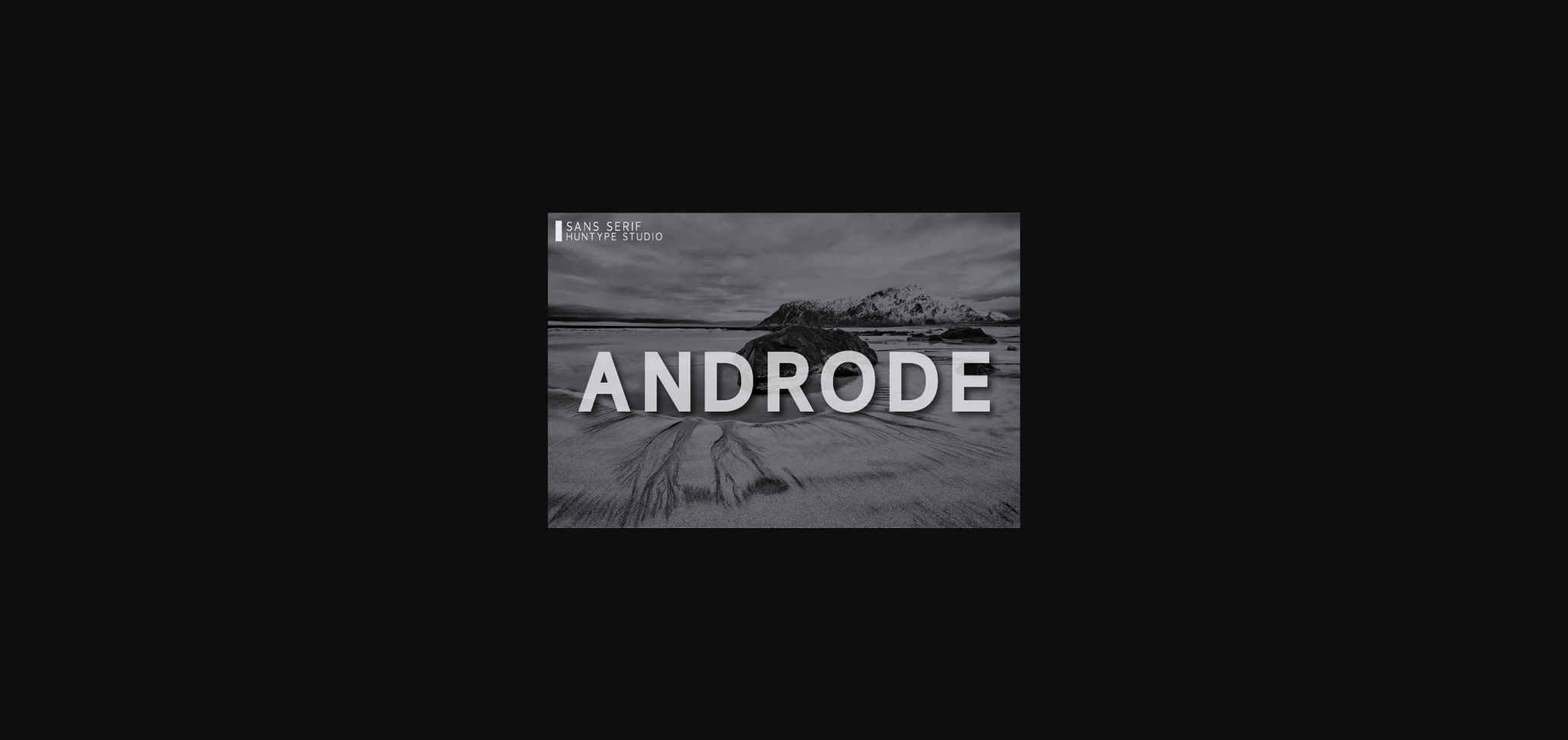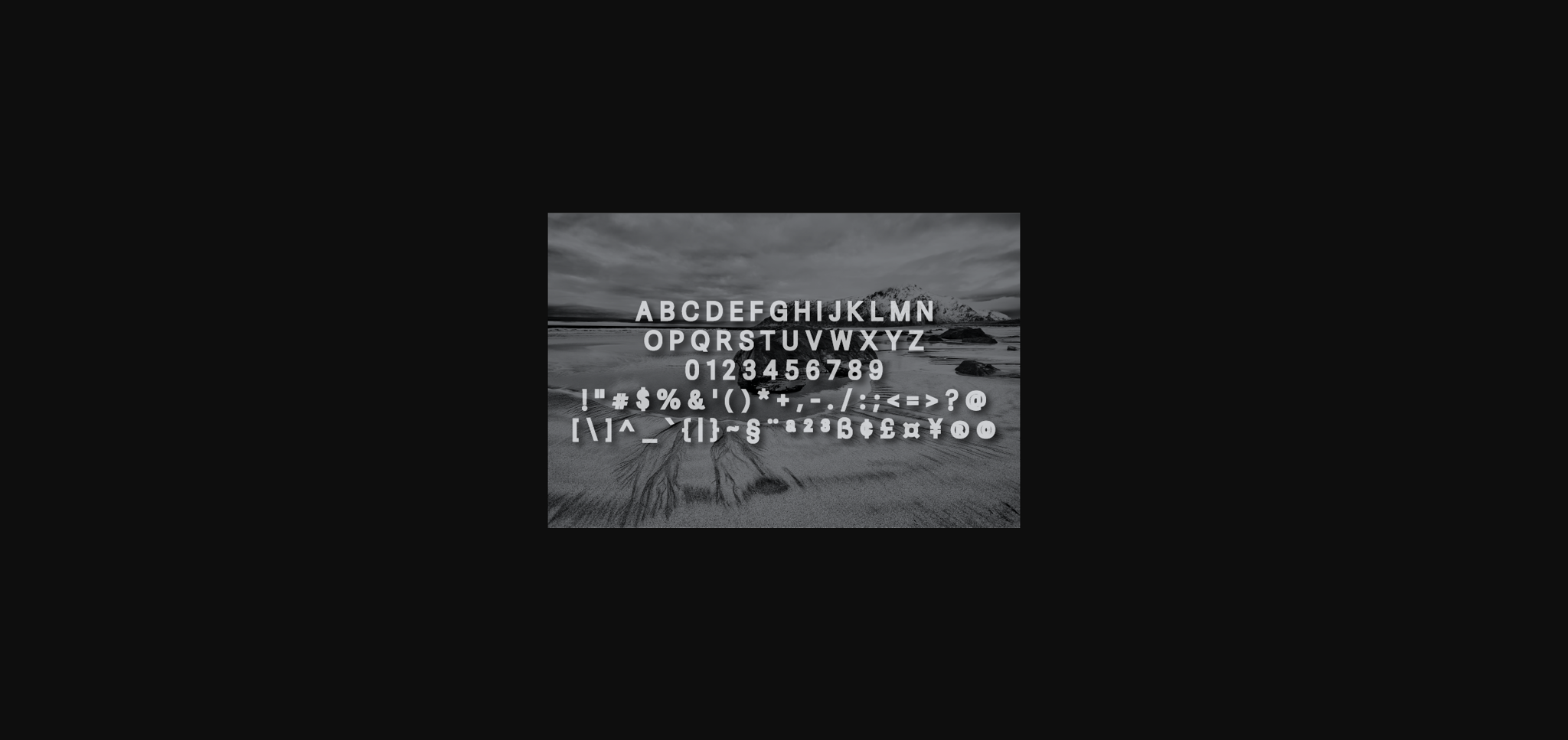
HomeSans Serif FontsAndrode Font Sans Serif Fonts Androde Font FacebookXPinterestWhatsApp 1 of 4 ... Androde Font Poster 2... Androde Font Poster 3... Androde Font Poster 4... About Androde Font Androde is a classy sans serif font. It will look particularly adept when used in logos, branding, packaging design, and much more. This masterfully designed typeface is a true must-have. DOWNLOAD NOW People also explored MF Star Dings 2 Font Sruti Font Ahtohalland Font Easy Hope Font Pumpkin Boo Font Sale! Mega Bundle 50 Modern And Classy Serif Font Bundle. YWFT Wonderland Amstonia Signature Font Heezpiero Font 299 0 TagsAndrodeAndrode Font Previous articleBlevin FontNext articleDelored Font LEAVE A REPLY Cancel reply Comment: Please enter your comment! Name:* Please enter your name here Email:* You have entered an incorrect email address! Please enter your email address here Website: Save my name, email, and website in this browser for the next time I comment. Personal Use Free Gagalin Personal Use Free Read more about this font BD Alm Personal Use Free Read more about this font Market Love Personal Use Free Read more about this font Zroest Personal Use Free Read more about this font BLOG Using Fonts in Digital Marketing: Tips to Strengthen Your Brand Identity In the realm of digital marketing, every visual element plays a crucial role in shaping a brand's identity, and fonts are no exception. The... Exploring Font Trends To increase your work productivity, choose the most readable fonts. How to Install and Use Fonts on Windows, macOS, and Web Projects